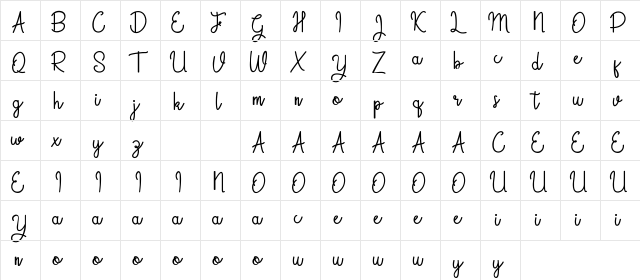
Guinevere Regular
Design Context for Guinevere Typeface
Guinevere is a composed and adaptable typeface that performs quietly and consistently across a wide range of design contexts.
Pro Tip: Pair Guinevere with a font of contrasting weight or personality to build a more expressive typographic hierarchy.